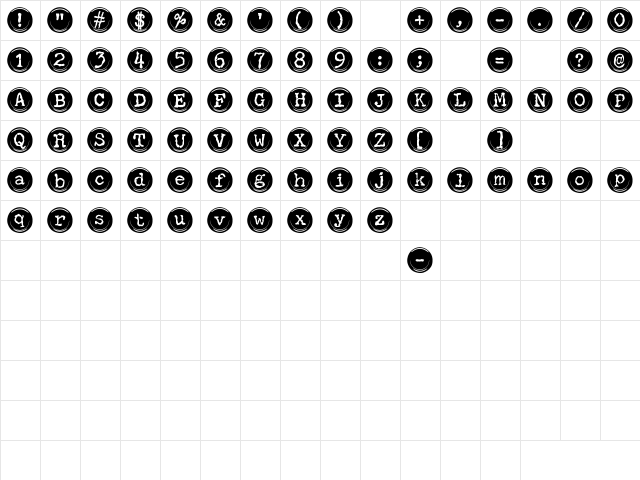
SBC Type Keys Black Regular
Design Context for SBC Type Keys Black Typeface
SBC Type Keys Black is a composed and adaptable typeface that performs quietly and consistently across a wide range of design contexts.